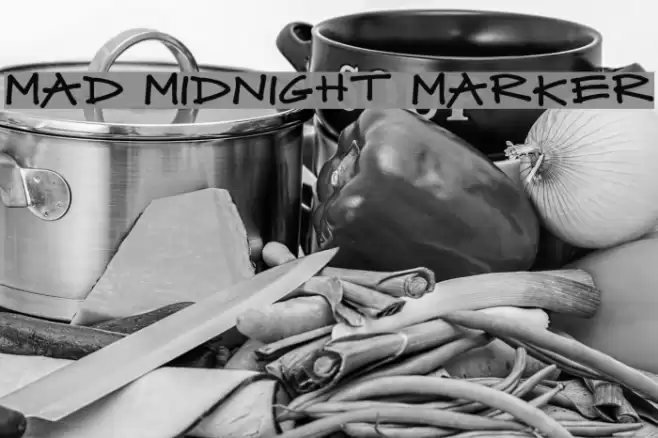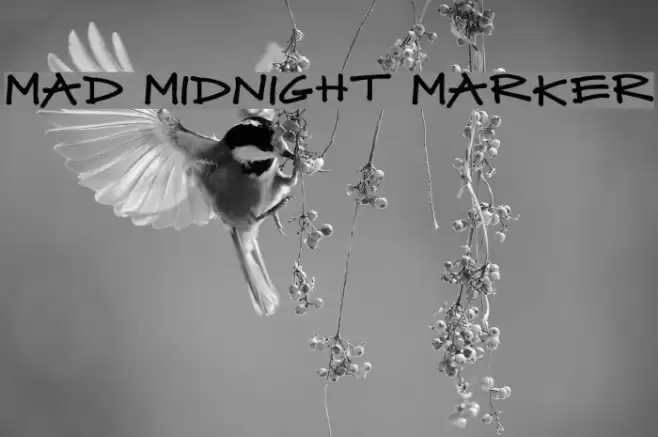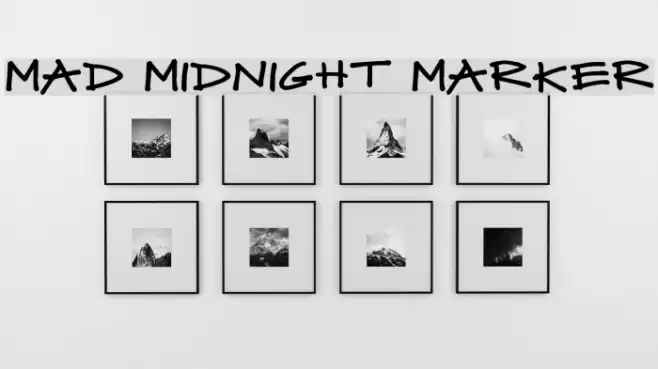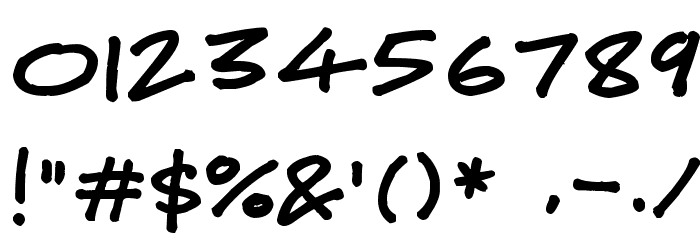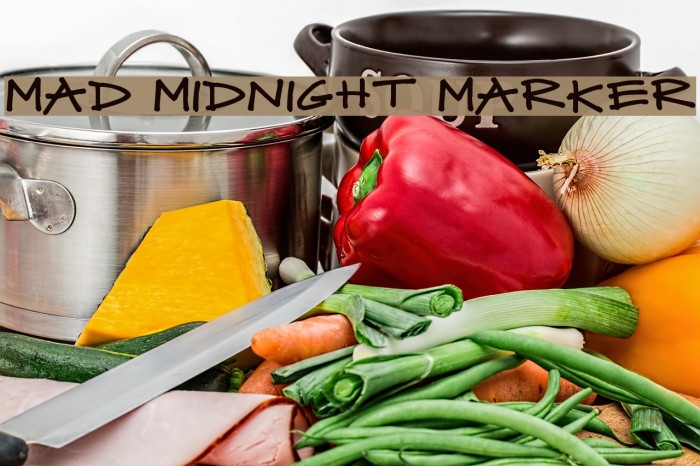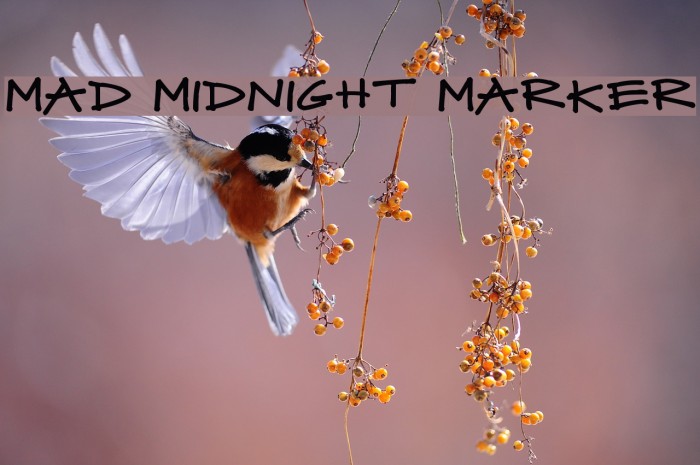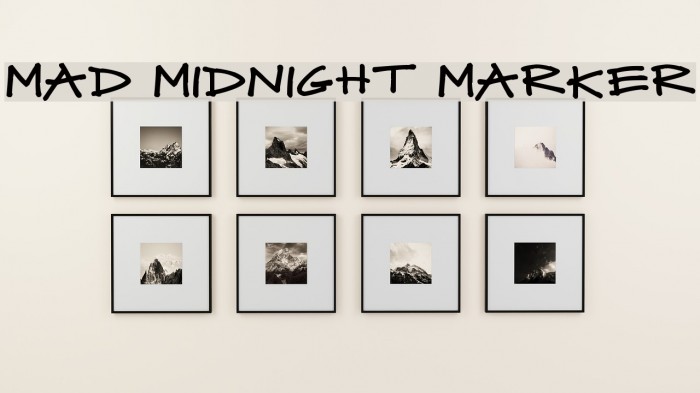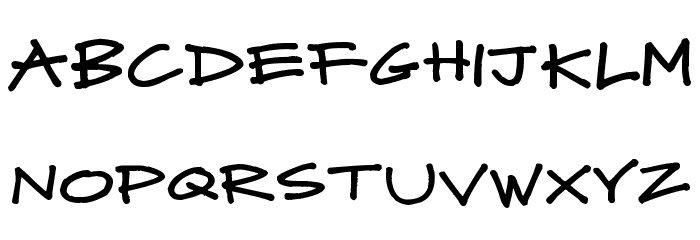
Mad Midnight Marker Font
Mad Midnight Marker Description
This font exudes a bold and expressive handwritten style, characterized by its thick, marker-like strokes and slightly irregular letterforms. The uppercase and lowercase letters maintain a consistent flow, giving it a casual yet impactful appearance. The numbers and special characters follow the same aesthetic, ensuring uniformity across all glyphs. Its playful and dynamic nature makes it suitable for projects that require a personal touch or a sense of informality. The font's boldness ensures readability while its unique style adds character to any design.
A bold, handwritten font with thick, marker-like strokes from Comic fonts.
- Proposed Projects: Ideal for posters, greeting cards, logos, and creative branding projects.
- Overall Style: Casual, Expressive
- Use Case: Headlines, Logos, Informal Text